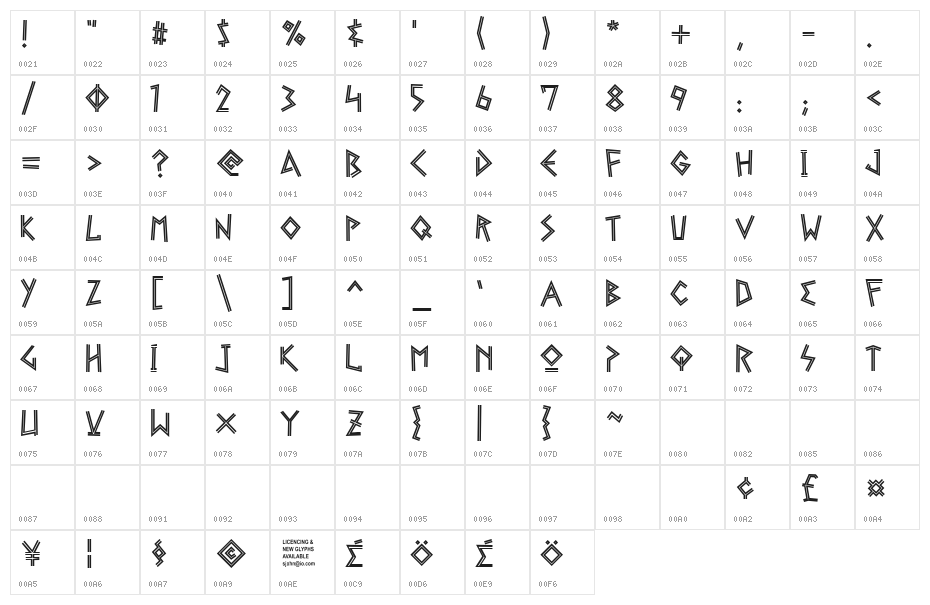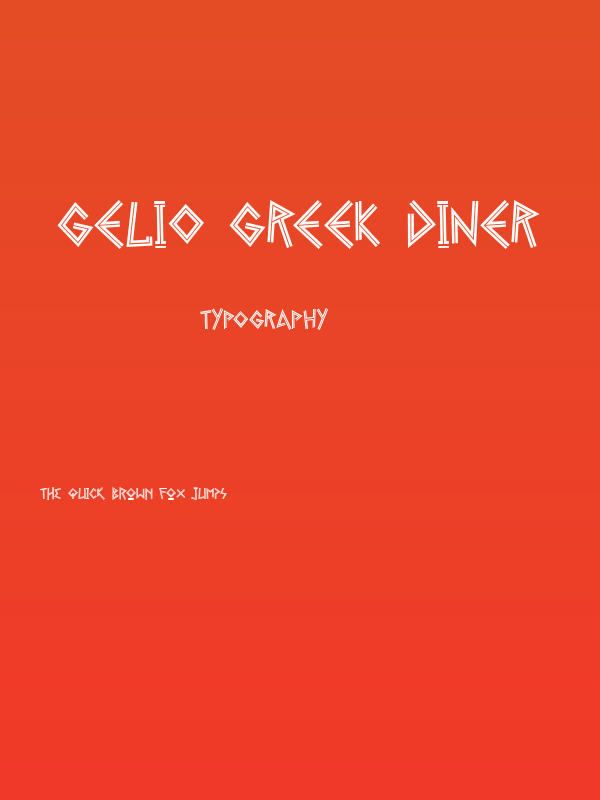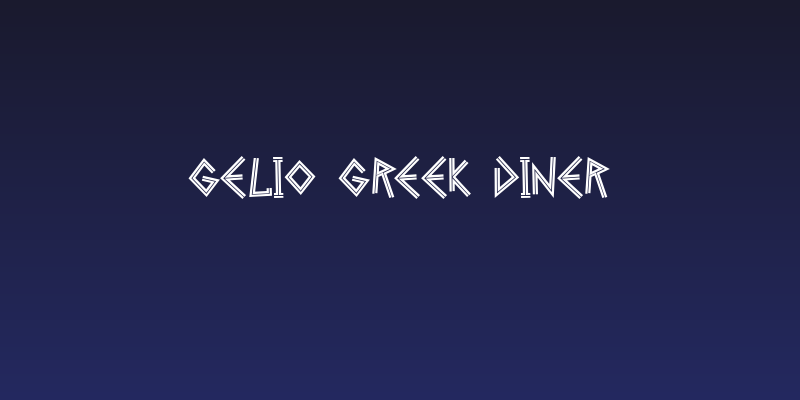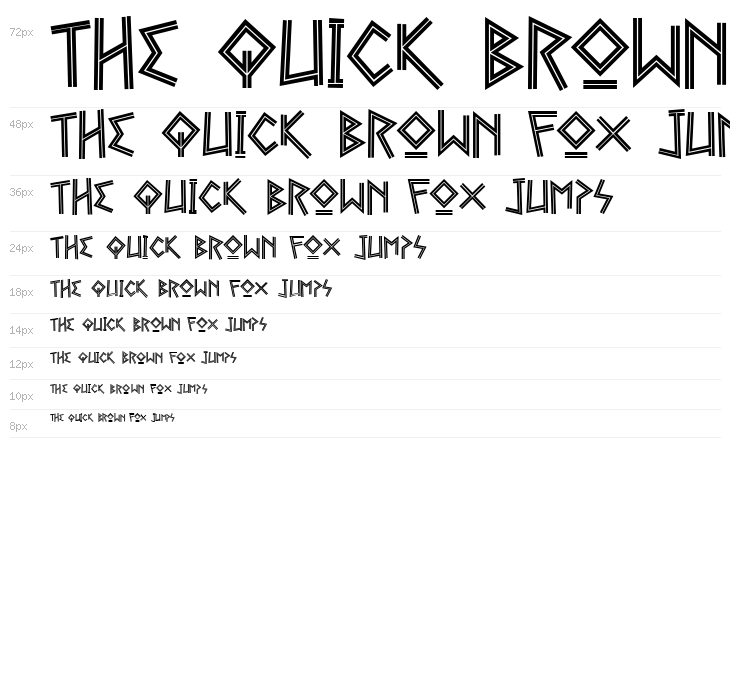
Gelio Greek Diner Font
Gelio Greek Diner Description
This font features a bold, geometric design with a distinct Greek-inspired aesthetic. The characters are constructed with sharp angles and clean lines, creating a sense of movement and energy. Each letter is outlined with a double line, adding depth and a three-dimensional effect. The uppercase and lowercase letters maintain a consistent style, while the numbers and special characters complement the overall design. The font's unique style makes it stand out, with a modern yet classic feel that evokes ancient Greek architecture and art.
| Overall Style | Modern, Classic |
| Proposed Projects | Ideal for projects requiring a classical or historical theme, such as restaurant branding, event posters, or themed merchandise. |